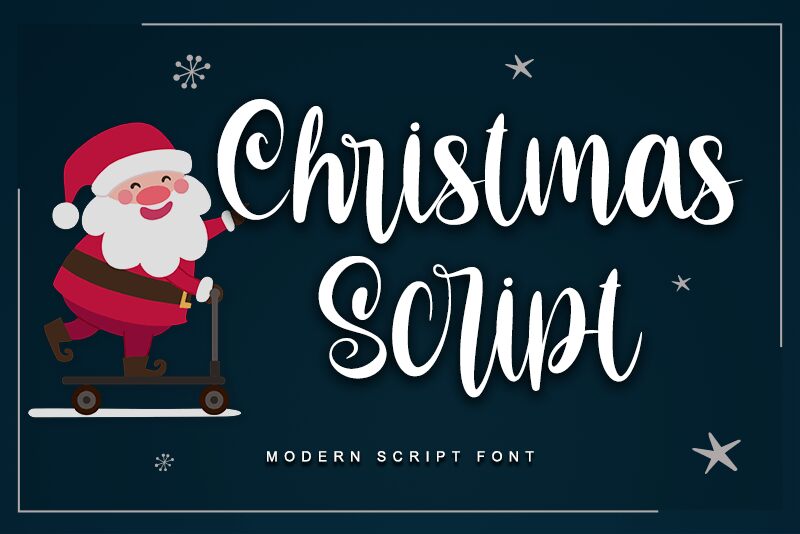
Christmas Script, a creation by Letterara, stands as a testament to the timeless elegance of calligraphy. This semi-light font exudes a sense of warmth and festivity that is perfectly suited for the holiday season. Its flowing lines and graceful curves evoke the nostalgia of handwritten letters and the joyous spirit of Christmas. The aesthetic appeal of Christmas Script lies in its harmonious balance between classic calligraphy and modern design, making it an ideal choice for holiday greetings, winter-themed branding projects, or any creative endeavor that calls for a touch of sophistication with a personal feel.
Its versatility extends beyond seasonal use; Christmas Script lends itself beautifully to wedding invitations, boutique branding, or any project requiring a touch of handcrafted elegance. The style's fluidity and expressiveness allow designers to convey emotions effectively while maintaining an air of professionalism and artistry. In essence, Christmas Script bridges the gap between decorative charm and functional design, ensuring its place in a wide array of design portfolios.